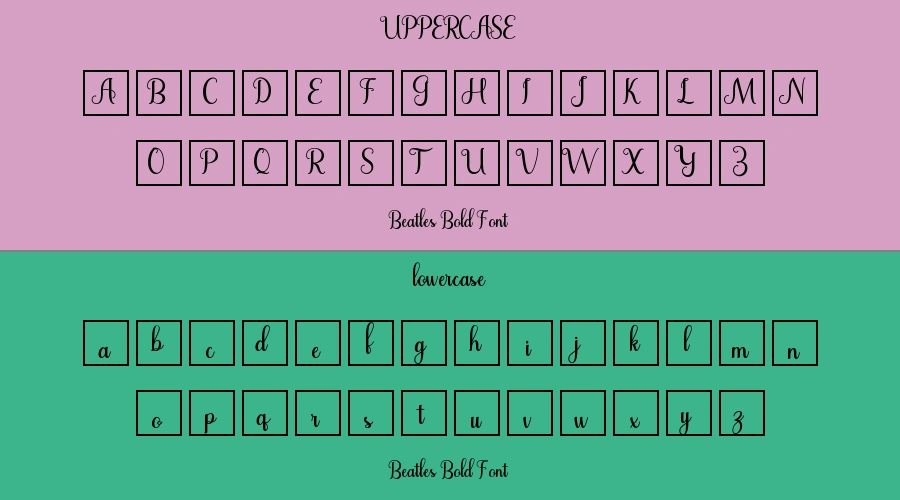
About Beatles Bold Font
Beatles Bold Font embodies typographic excellence through its masterful combination of contextual swashes and brand distinction. Created for web design, this typeface delivers exceptional impact and functional utility across all applications. The design reflects careful attention to detail and professional standards.
Advanced capabilities include distinctive calligraphic strokes and versatile classic proportions, giving designers creative control. When used in artistic statements, Beatles Bold Font exhibits remarkable memory recall. The harmonious balance between bowl width and technical authority sets this typeface apart.